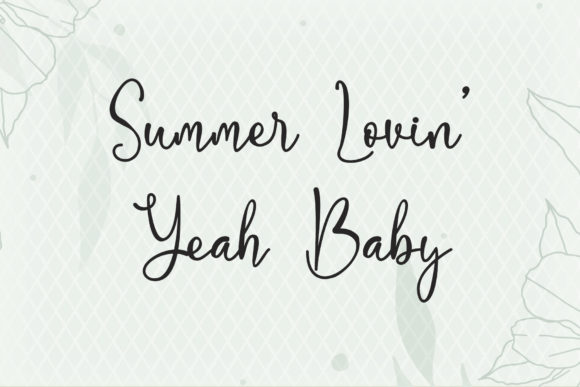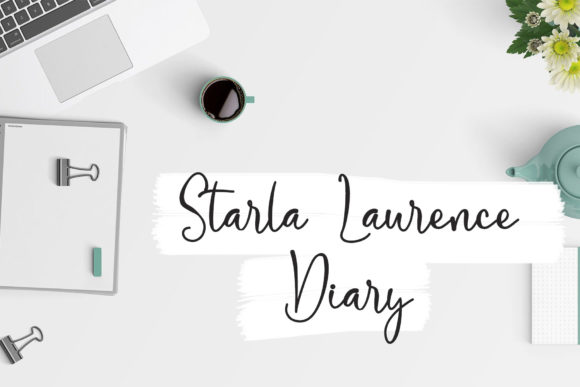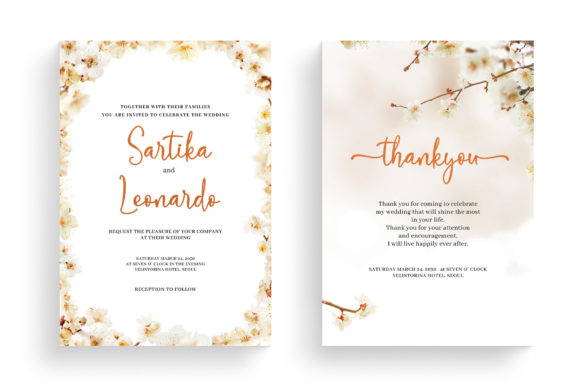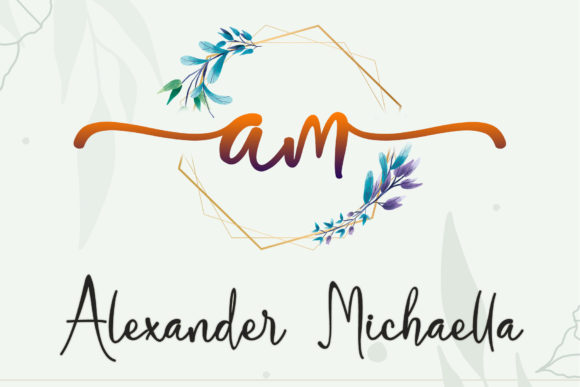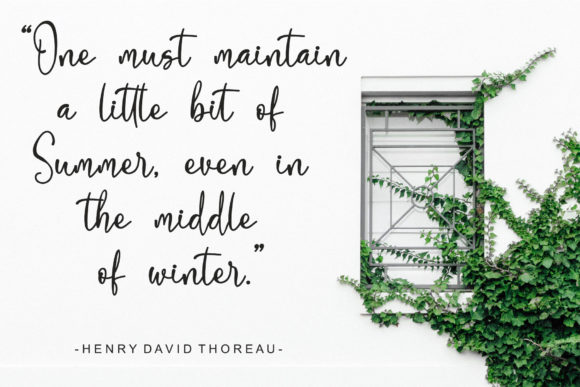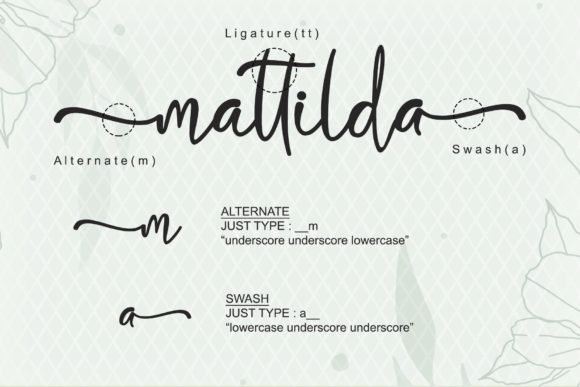
The Perfect Brushstroke: Unlocking the Magic of Biolina Larasita Font
Have you ever been working on a design project, and you just can’t seem to find the right font to bring it to life? You know, that moment when you’re scrolling through font libraries, and suddenly, a particular style catches your eye, making everything else fade into the background? That’s exactly what happened to me when I stumbled upon the Biolina Larasita Font.
This romantic and sweet calligraphy typeface is more than just a pretty face – it’s a game-changer for designers. With its unique characters that dance along the baseline, it adds a luxury spark to any design project, making it perfect for special occasions, invitations, or even branding materials. And with its PUA encoding, accessing all the amazing glyphs and ligatures is a breeze.
Biolina Larasita Font Key Features
- Unique Characteristics: The font features a unique blend of modern and traditional elements, making it suitable for a wide range of design applications, from editorial to branding.
- Font Family: Biolina Larasita Font is part of a larger font family, offering a range of weights and styles to cater to different design needs.
Biolina Larasita Font Review
When I first saw the Biolina Larasita font, I was immediately drawn to its unique blend of modern and traditional elements. ✨ The flowing lines and organic shapes give it a sophisticated and elegant feel that’s perfect for high-end designs. I’ve found it to work particularly well in contexts where a touch of whimsy is needed, such as in branding for boutique shops or luxury hotels.
One of the standout features of this font is its versatility. ✨ It’s suitable for a wide range of projects, from digital displays to print materials. Additionally, its high x-height makes it easily readable at small sizes, which is a major plus in my book.
- ⚠️ The font may not be suitable for projects where a more formal or traditional look is required, as its organic feel may come across as too casual.
- ⚠️ Some users may find the font’s irregularities and imperfections to be distracting or overwhelming, particularly if used extensively throughout a design.
Overall, I’m quite fond of the Biolina Larasita font. It’s a great choice for designers who want to add a touch of sophistication and elegance to their work. While it may not be the best fit for every project, it’s definitely a solid addition to any font collection.
Getting the Most Out of Biolina Larasita Font
For optimal results, use Biolina Larasita font for titles, headings, and body text that requires a touch of elegance and sophistication.
Experiment with different font sizes and styles to create visual interest and balance.
Biolina Larasita font is suitable for:
2. Luxury branding and marketing materials.
3. High-end fashion and beauty packaging.
4. Elegant event programs and schedules.
Alternatives to Biolina Larasita Font
The Great Vibes Font is a beautiful, elegant script font that is perfect for creating a luxurious and sophisticated look. It is ideal for use in high-end branding, wedding invitations, and special occasion materials. The Great Vibes Font is more refined and classic compared to Biolina Larasita Font, which has a more playful and whimsical feel.
The Carolyna Pro Font is a modern script font that is perfect for creating a clean and stylish look. It is ideal for use in branding, advertising, and digital materials. The Carolyna Pro Font has a more streamlined and contemporary feel compared to Biolina Larasita Font, which has a more ornate and traditional look.